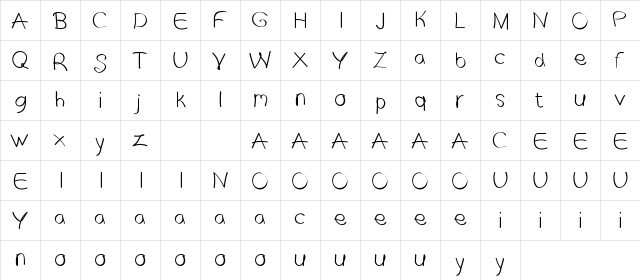
Jack Seel Regular
| Foundry | Idesain Creative |
| Designer | Mr.Audi Prasetya |
Design Context for Jack Seel Typeface
Jack Seel is a composed and adaptable typeface that performs quietly and consistently across a wide range of design contexts.